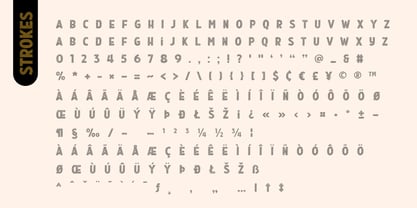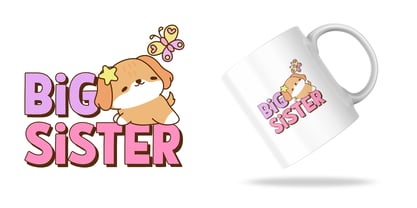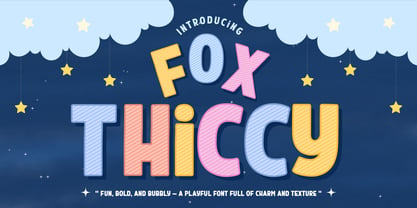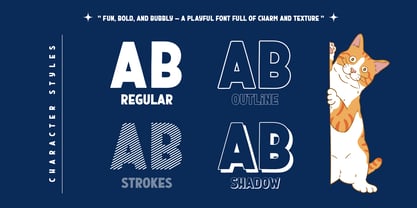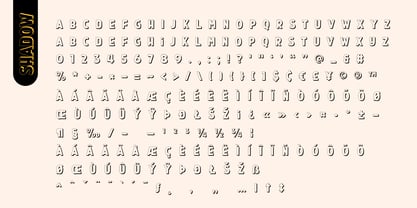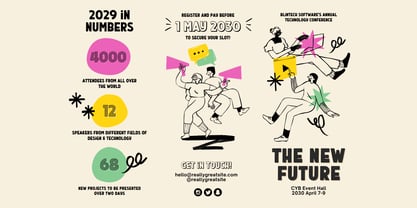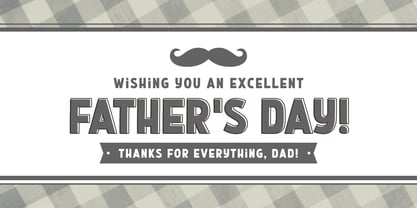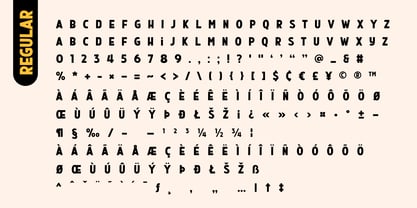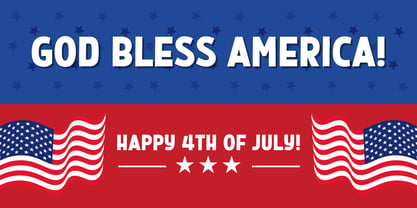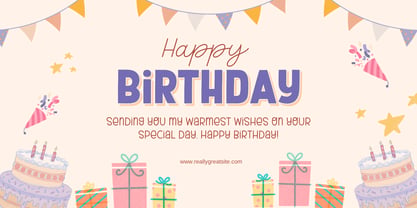
Fox Thiccy
by Fox7
The Fox Thiccy Font Family was designed by Rattana Rattanawan and published by Fox7. Fox Thiccy contains 4 styles and family package options. More about this family
Fox Thiccy is a fun and cool display font family designed to brighten up your creative projects! With four playful styles – Regular, Outline, Strokes, and Shadow – this font offers endless combinations for crafting eye-catching titles, cheerful branding, kids’ designs, and joyful quotes. Each style adds its own personality: from the bold Regular, the stylish Outline, the whimsical Strokes, to the dimensional Shadow effect.
Whether you're designing for children's books, stickers, games, posters, or playful packaging, Fox Thiccy brings charm, texture, and a bubbly vibe to every letter. It’s easy to layer, fun to mix, and full of delightful character!